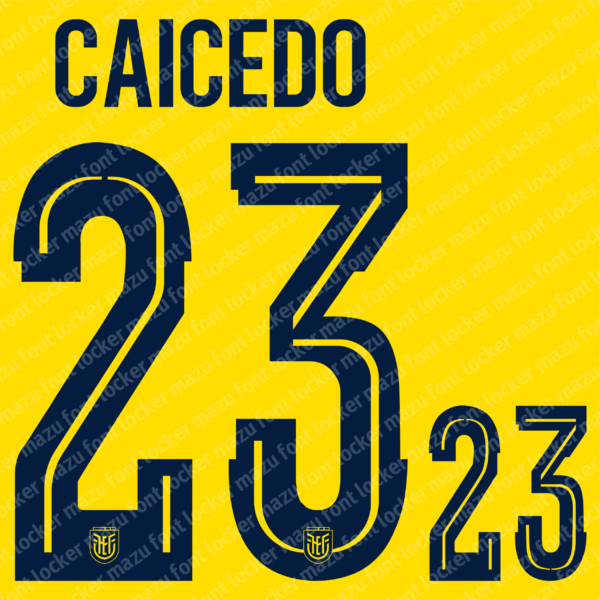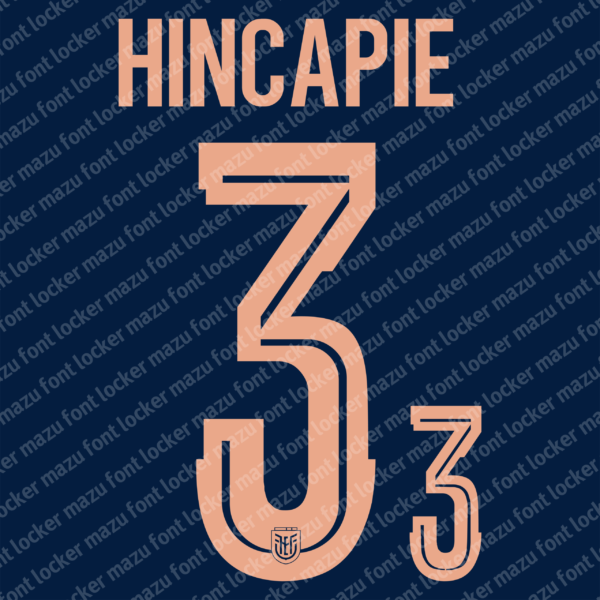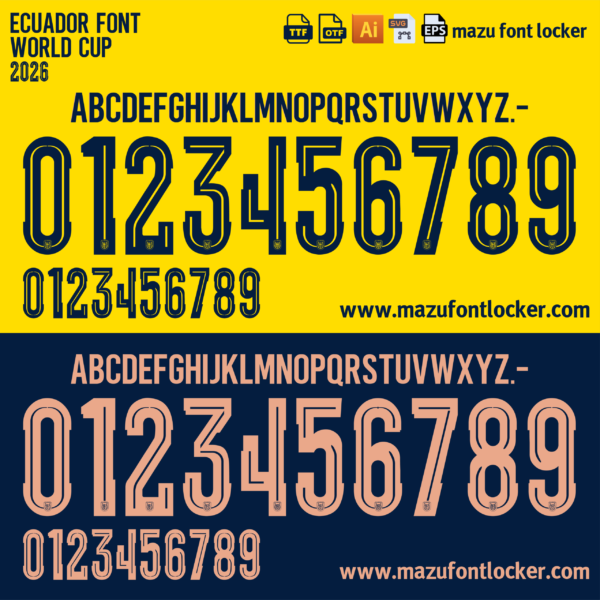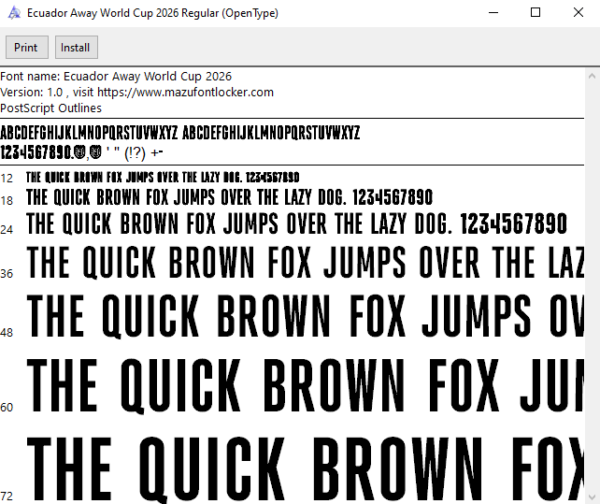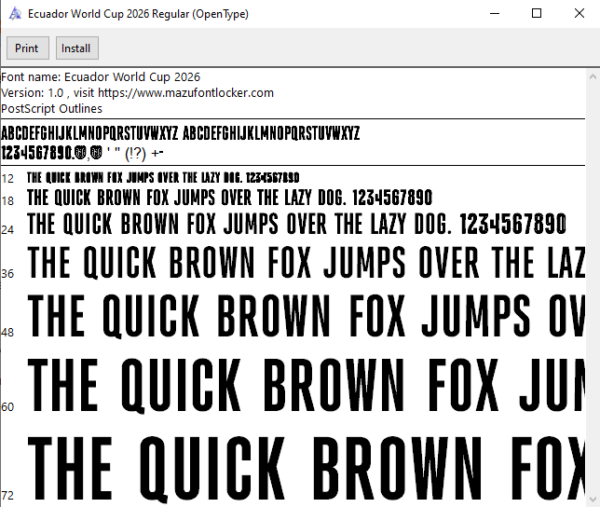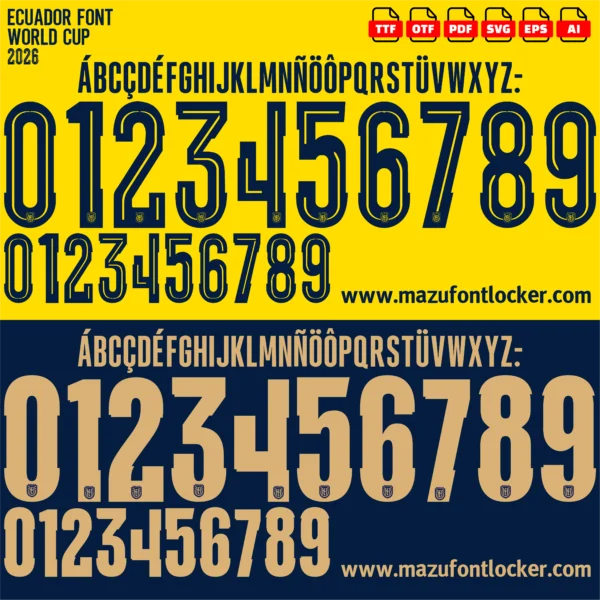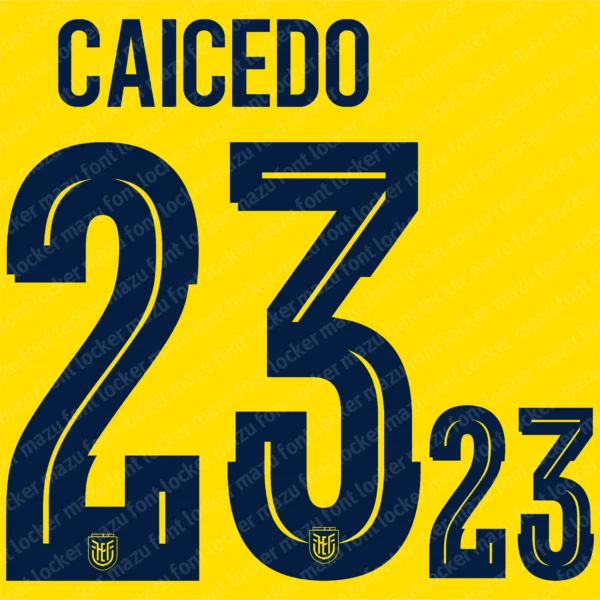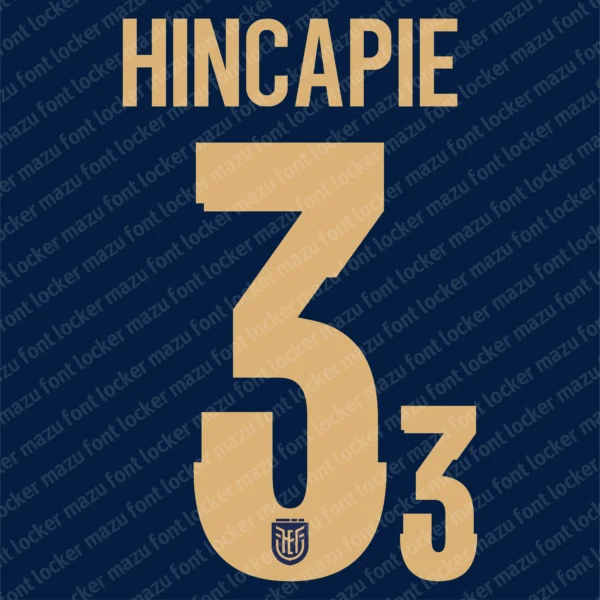
Ecuador World Cup 2026 Font Vector – Majestic La Tri Masterpiece
This premium font captures the commanding, iconic, majestic, and battle-ready lettering that embodies the unstoppable Ecuadorian spirit — delivering raw Andean fire, explosive winning energy, relentless never-say-die mentality, tactical supremacy, and legendary South American warrior grit.
Ecuador World Cup 2026 Font Vector – Authentic La Tri Typeface
The Ecuador World Cup 2026 Font Vector is a premium typeface that accurately recreates the official match lettering worn by the Ecuador national team during the 2026 FIFA World Cup campaign. This high-quality vector font kit captures the bold, energetic, and vibrant typography that represents the passion, unity, and rich football heritage of La Tri.
Why Choose Ecuador World Cup 2026 Font Vector
This font stands out because of its sharp vector precision and strong national identity. Every letter and number is crafted to match the exact style used on the players’ shirts during the 2026 World Cup campaign. Whether you are making realistic kit templates or exciting La Tri content, the Ecuador World Cup 2026 Font Vector gives your designs that authentic Ecuador look.
The letterforms in the Ecuador World Cup 2026 Font Vector are tall, bold, and highly readable. The strokes have a strong, clean weight with excellent edge definition that looks powerful on the back of jerseys while maintaining the dynamic South American spirit and modern strength.
• Full uppercase A–Z and numbers 0–9 in authentic Ecuador World Cup 2026 style
The Ecuador World Cup 2026 Font Vector is an independently designed typeface package. It is carefully crafted to replicate the official shirt lettering style of the 2026 World Cup season. This font kit is perfect for creative projects, fan edits, nostalgic jersey designs, and custom football graphics.